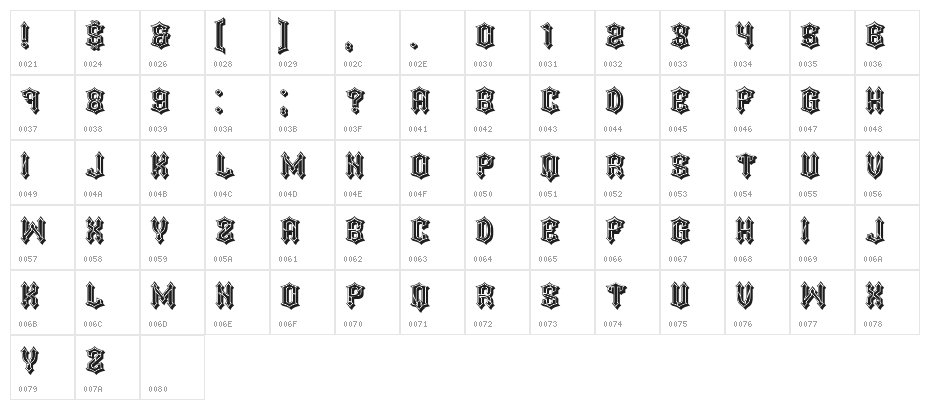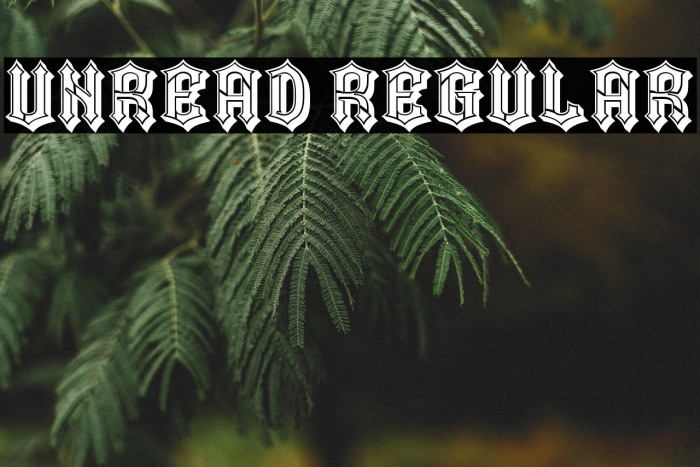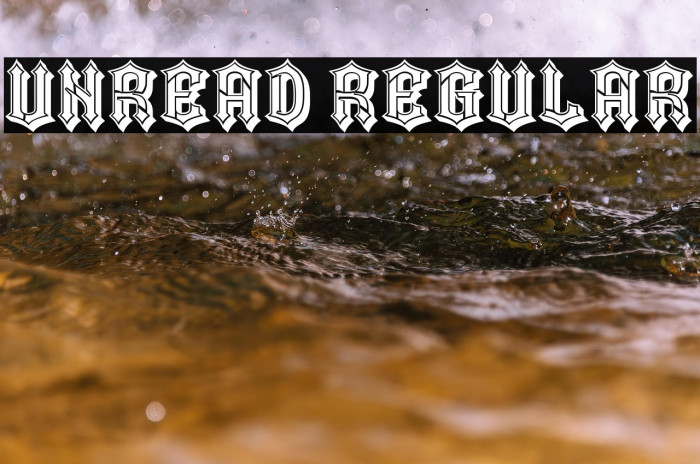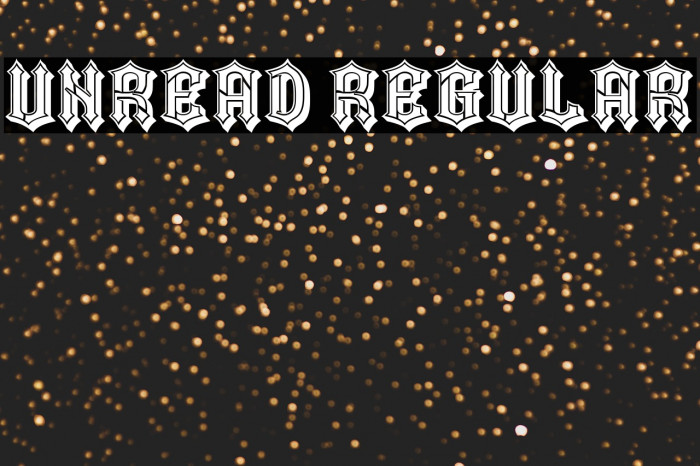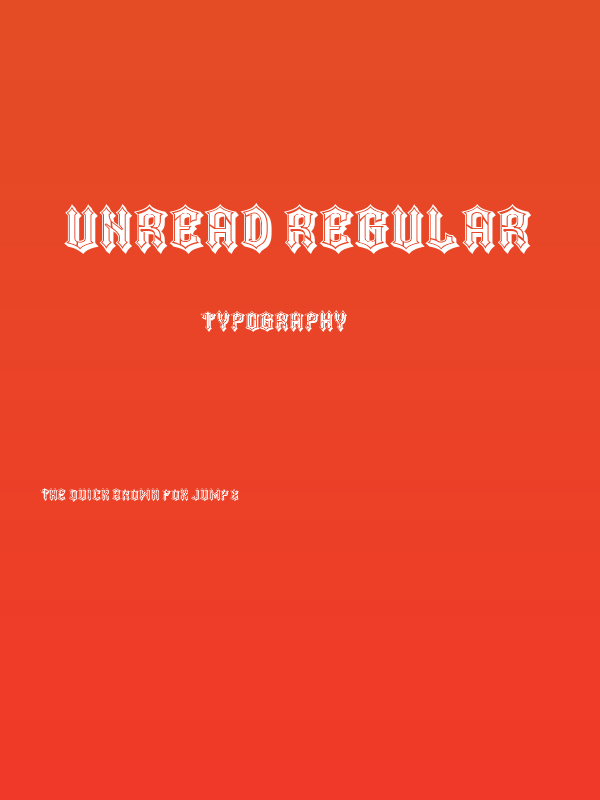
Unread Regular Font
Unread Regular Description
This font features a bold and striking design with a strong blackletter influence. The characters are highly decorative, with intricate details and sharp edges that give them a gothic appearance. The uppercase and lowercase letters maintain a consistent style, with angular serifs and a heavy weight that enhances their dramatic look. The numbers and special characters follow the same ornate pattern, making the font suitable for creating a cohesive and impactful visual theme. The overall design is reminiscent of medieval script, yet it carries a modern twist that makes it versatile for various creative projects.
| Proposed Projects | Ideal for use in branding, posters, album covers, and any project requiring a dramatic and historical aesthetic. |